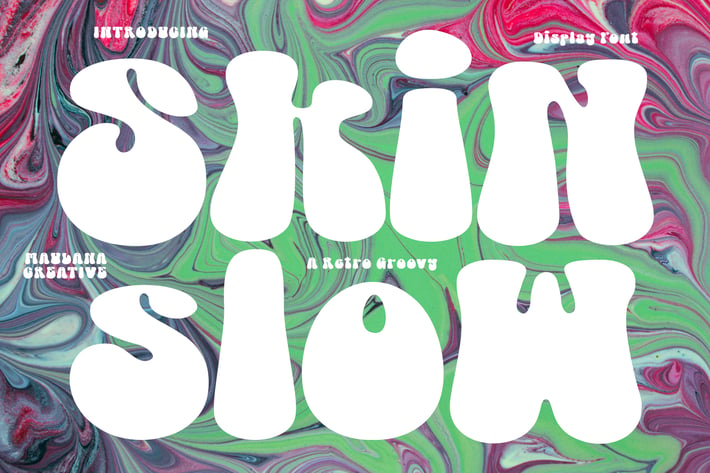
Skin Slow Retro Groofy Display Font
Skin Slow is a psychedelic vibes display font. With heavy contrast stroke, fun character with a bit of ligatures and alternates. To give you an extra creative work. Skin Slow font support multilingual more than 100+ language. This font is good for logo design, Social media, Movie Titles, Books Titles, a short text even a long text letter and good for your secondary text font with sans or serif. Make a stunning work with Skin Slow font.